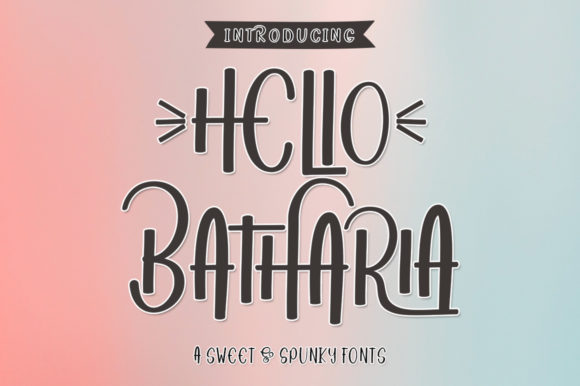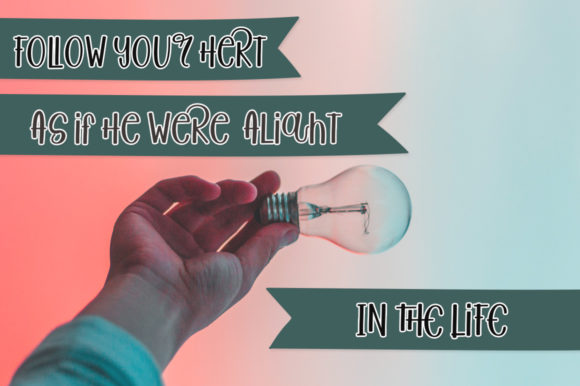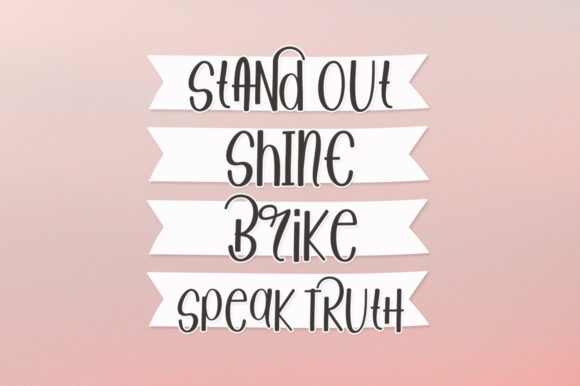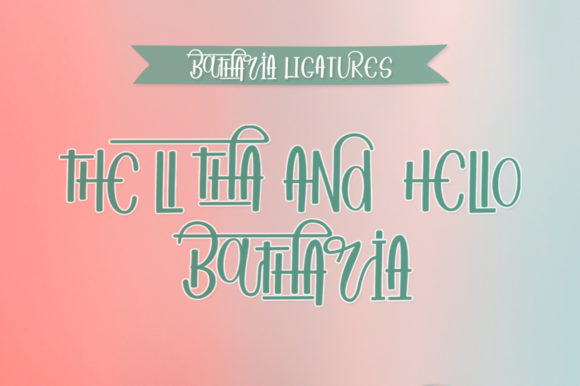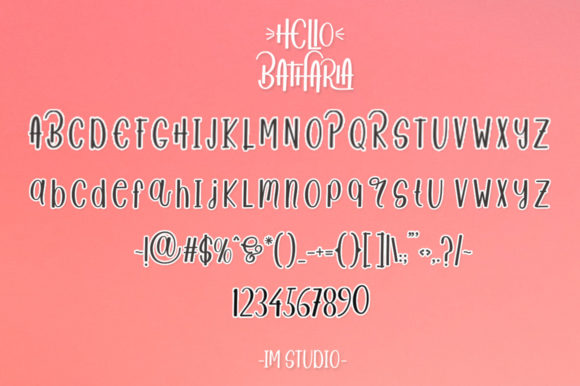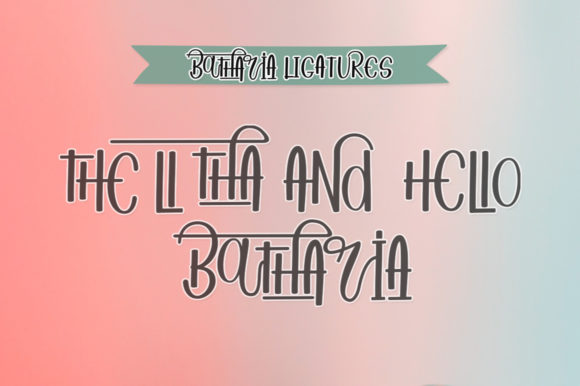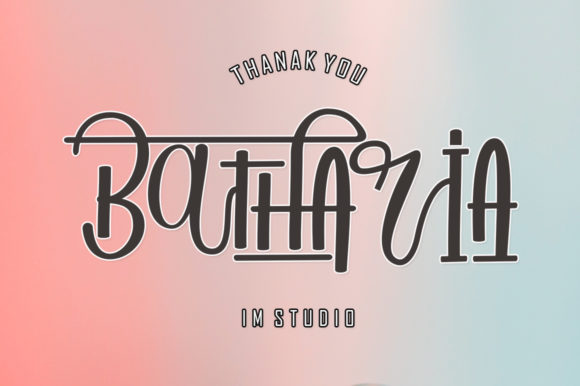
Hello Batharia Font
About Hello Batharia Font
Hello Batharia is a cute and original handwritten font with an incredibly friendly feel. Whether you’re looking for fonts for Instagram or calligraphy scripts for DIY projects, Hello Batharia will turn any creative idea into a true piece of art!